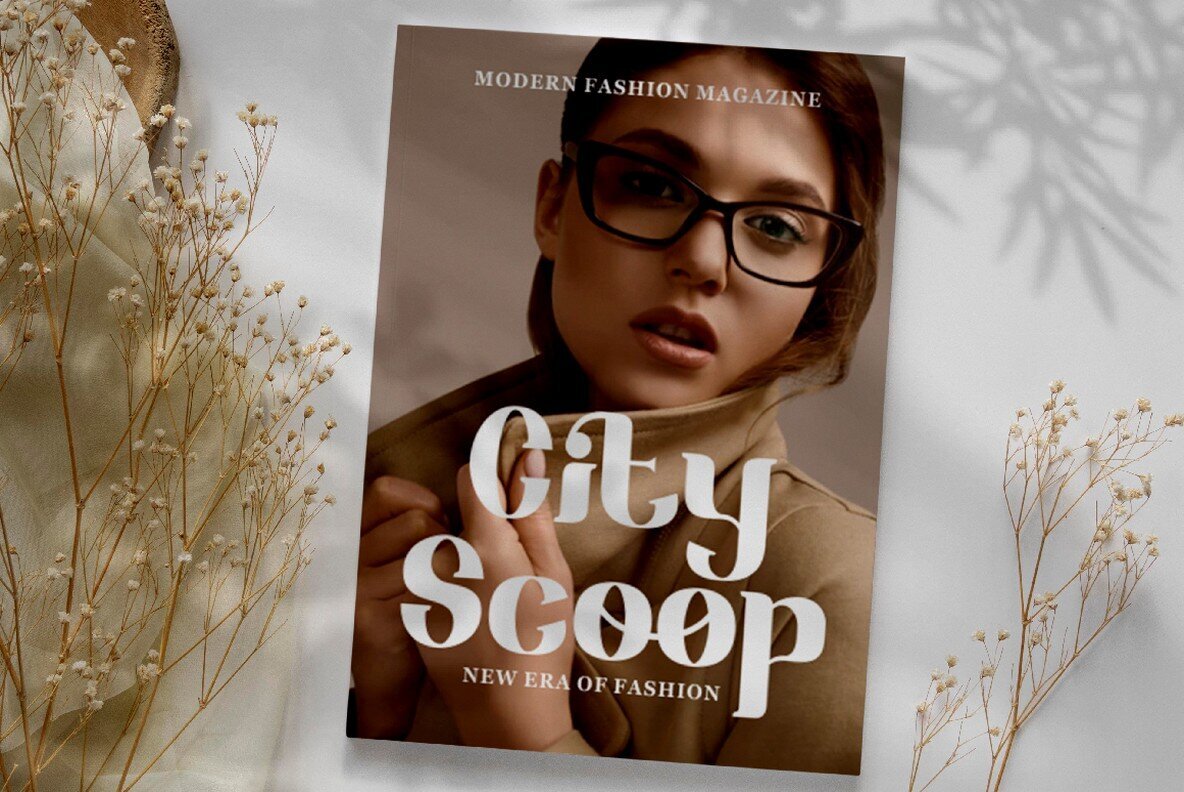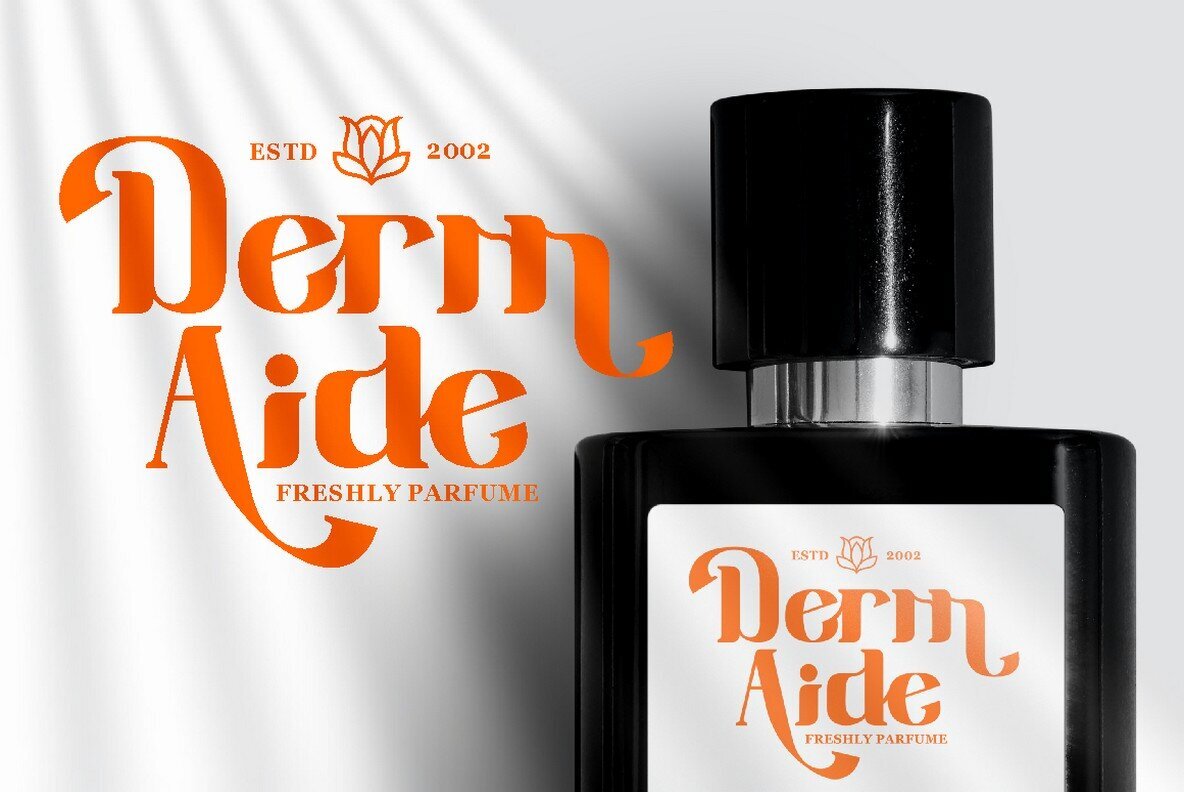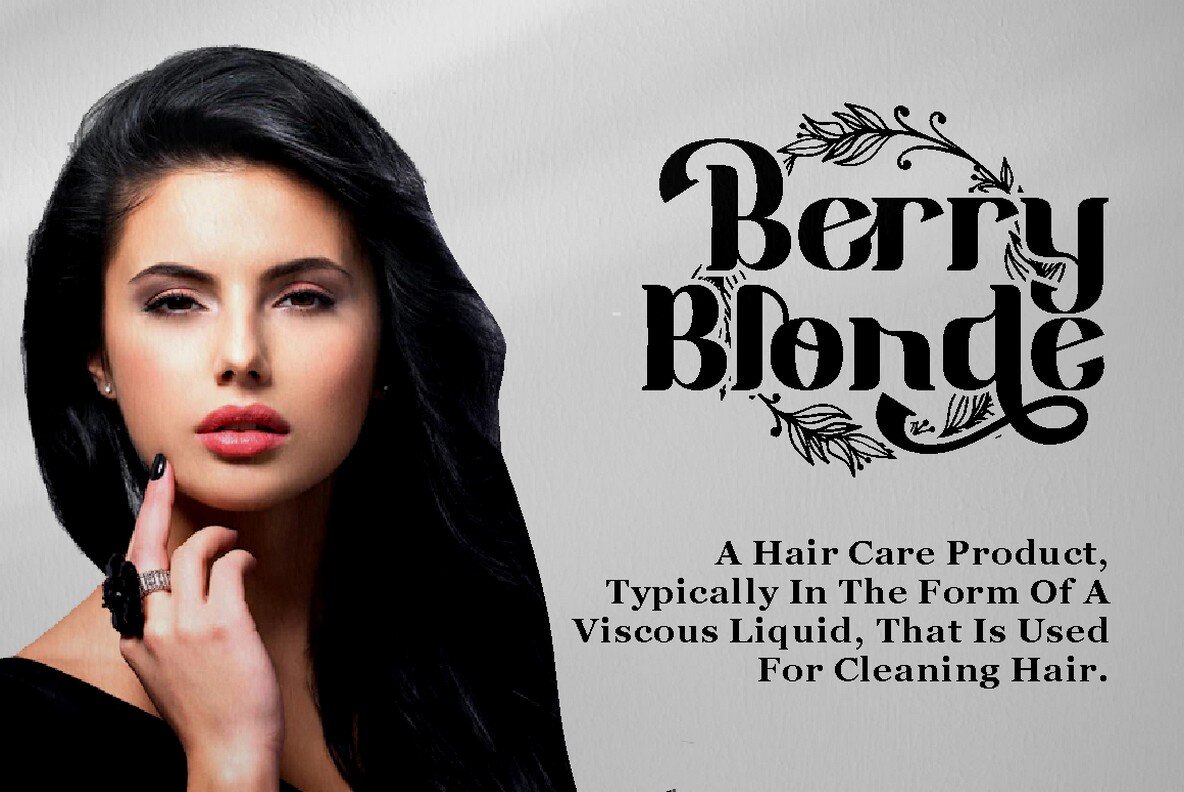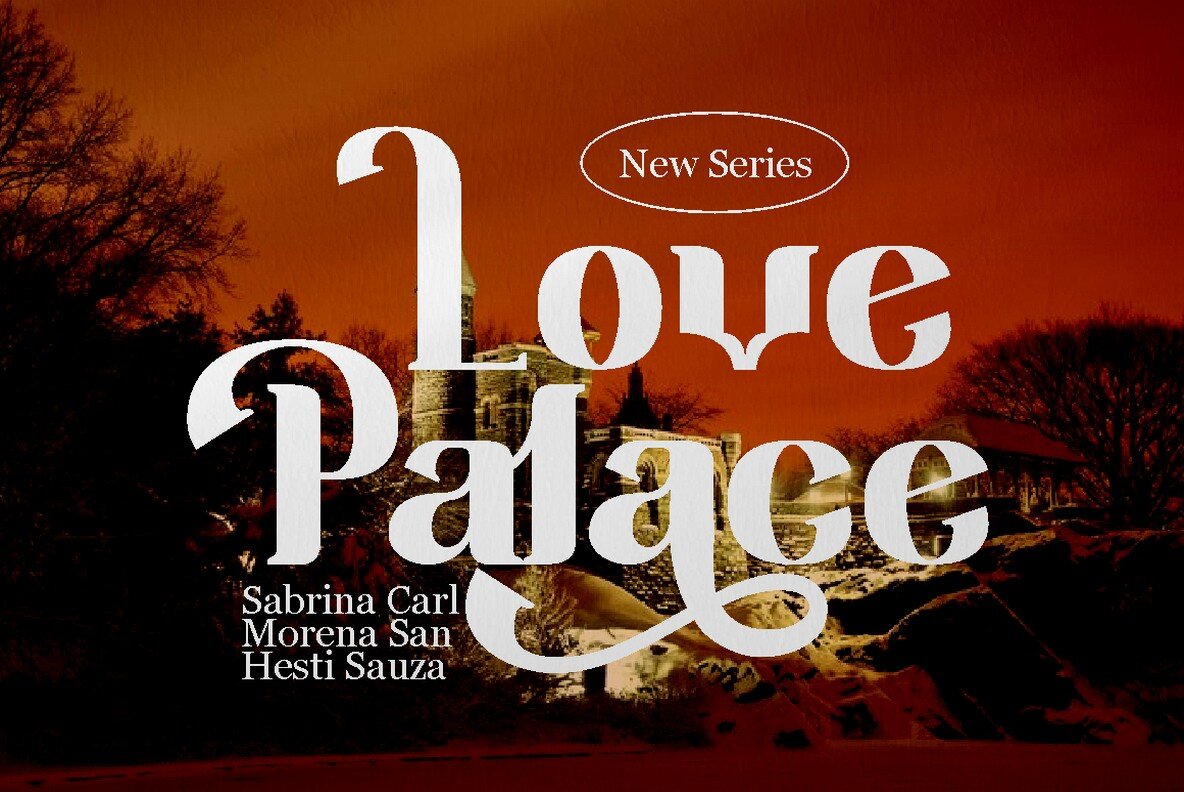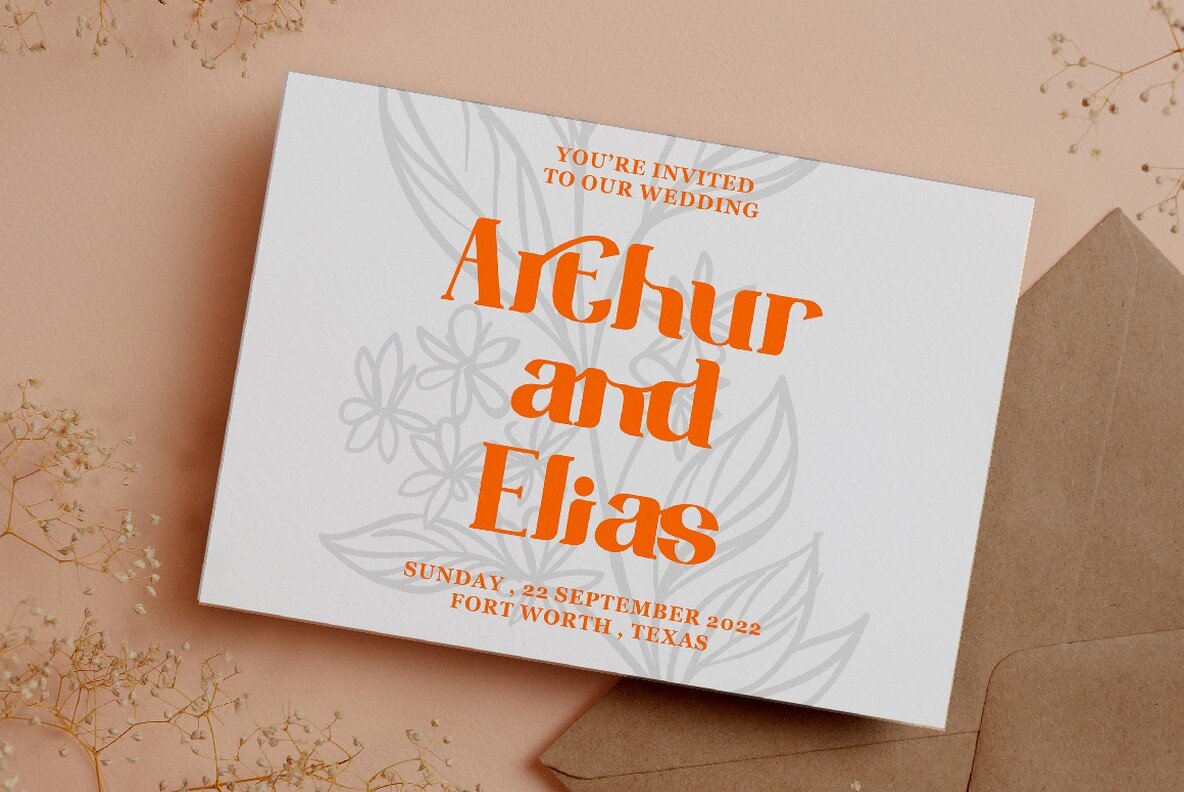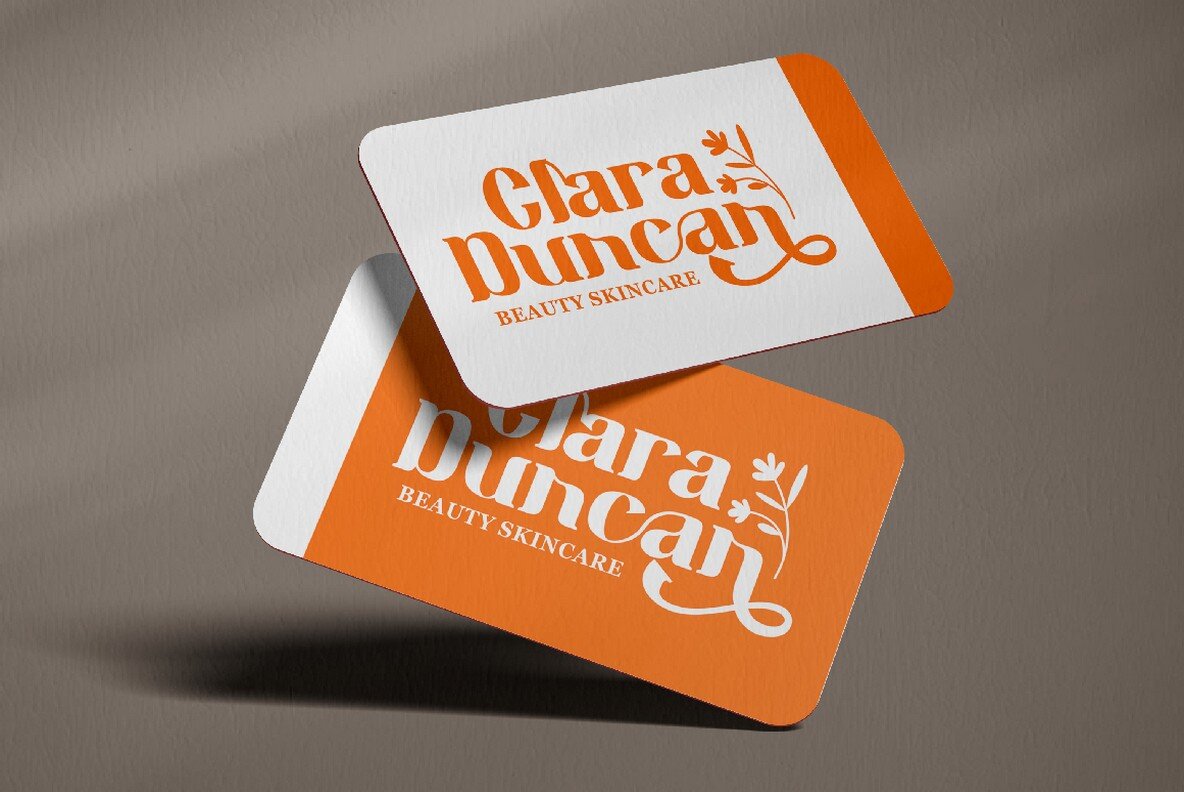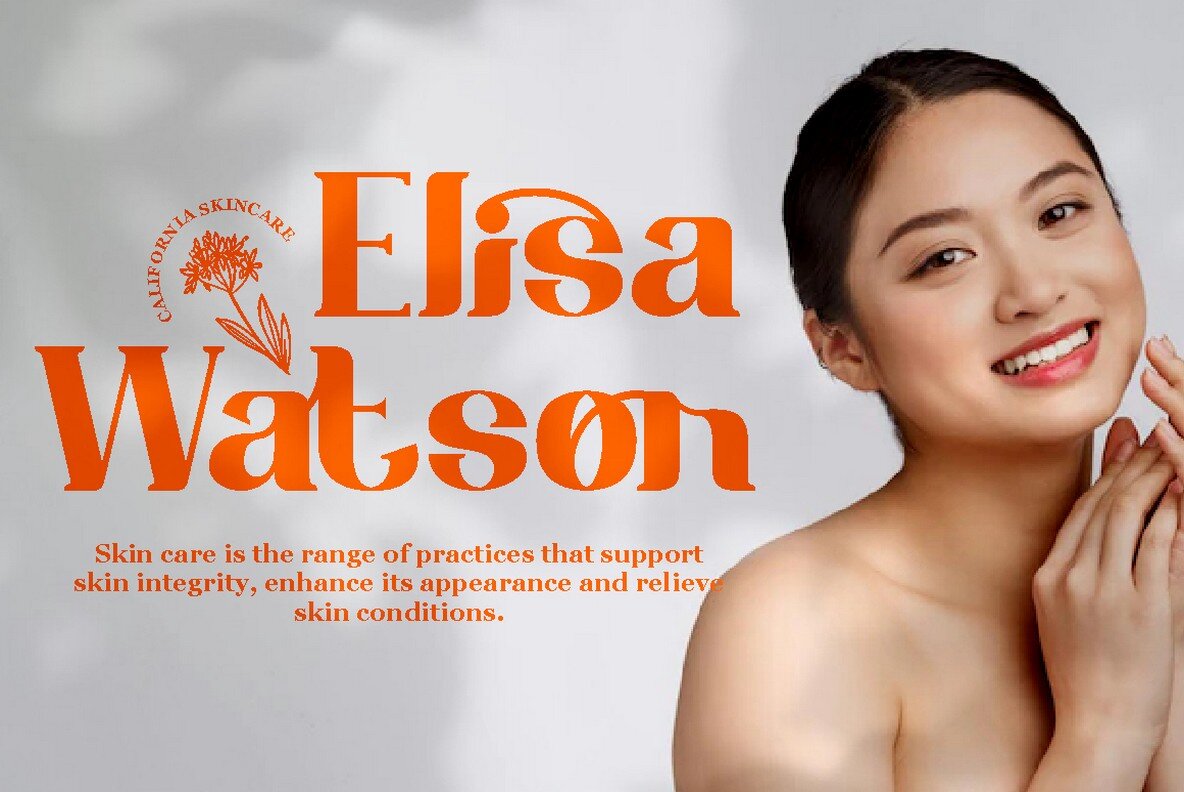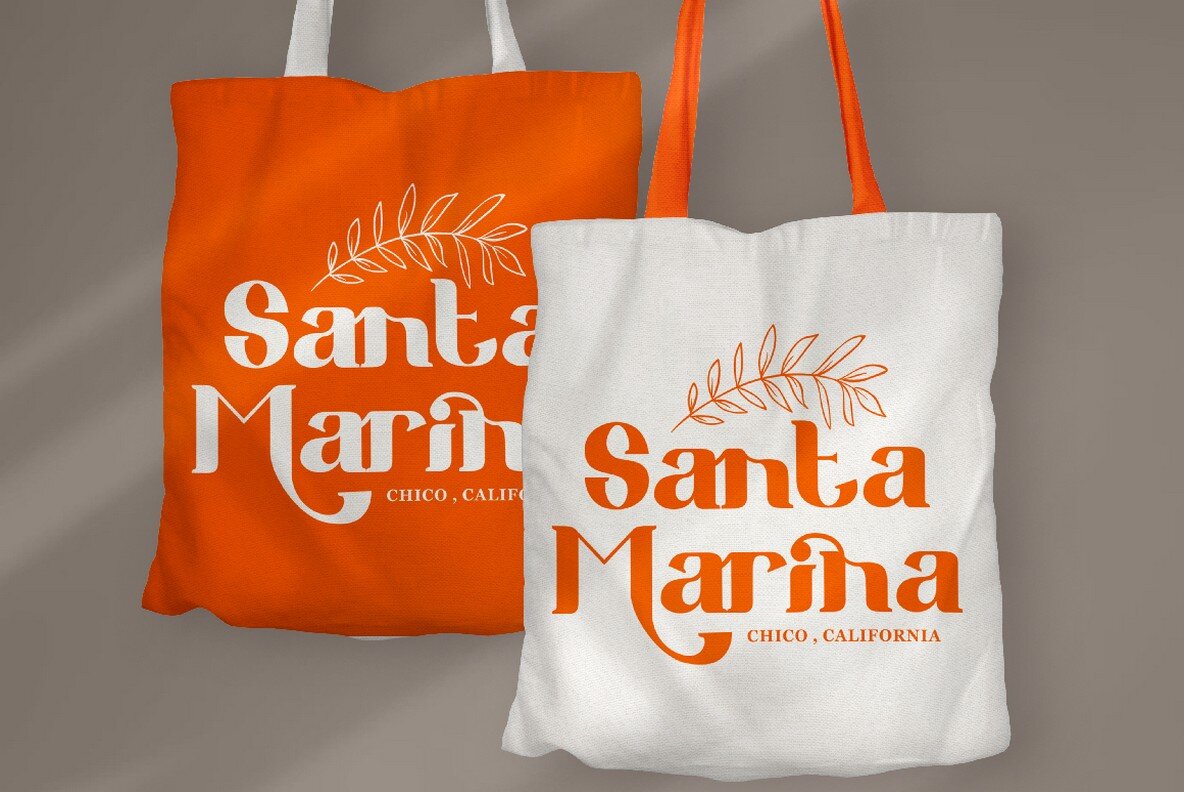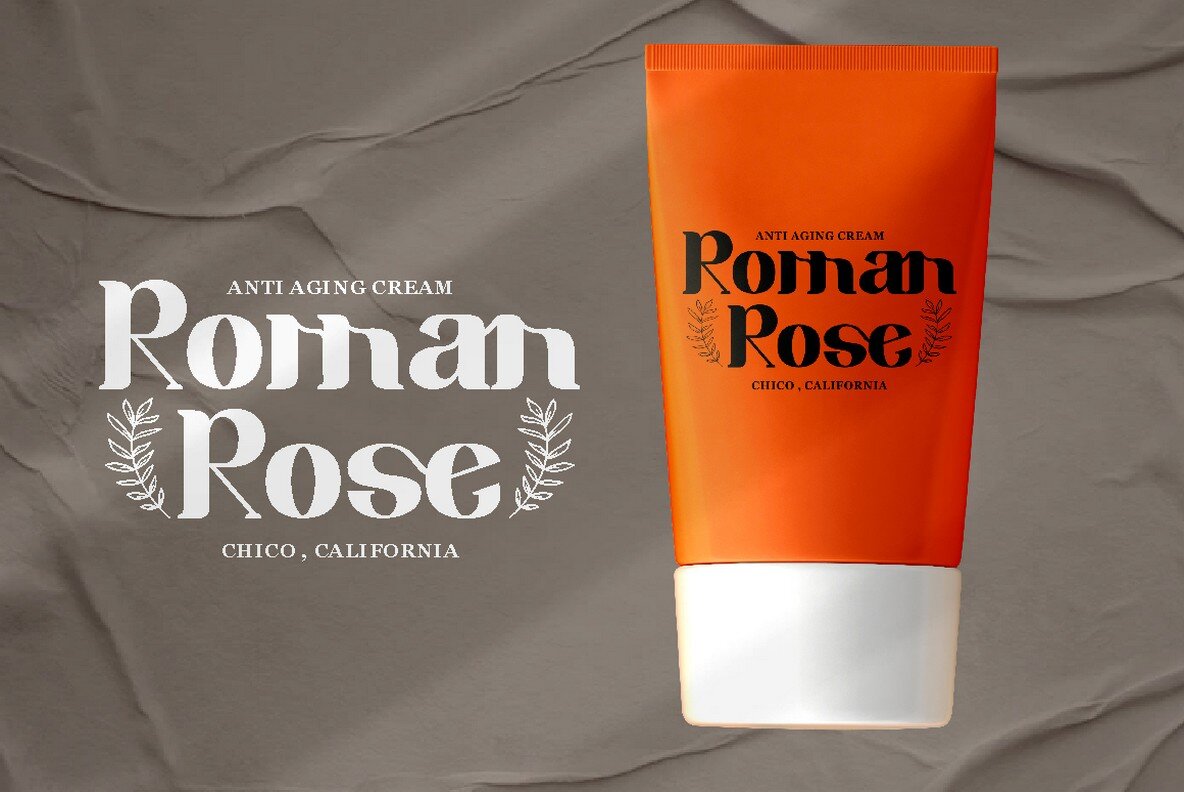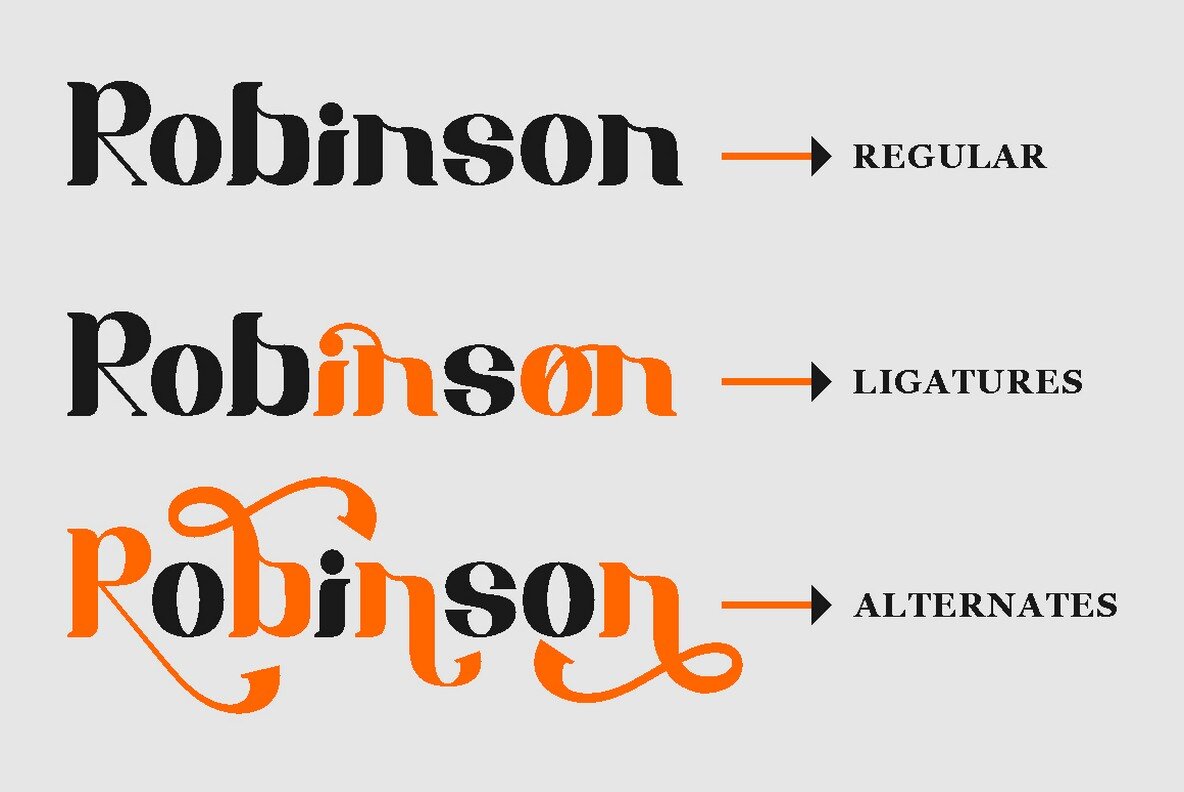
Sixty Niners Font
Sixty Niners Regular
Sixty Niners Texture
Sixty Niners by Putra Novembria Candra Kusuma brings together the charm of vintage magazine typography and the sleekness of modern design. This retro display font features unique ligatures that lend themselves to stunning lettering and artistic expressions. Sixty Niners is perfect for logotypes, headings, posters, and social media graphics, among other applications. Its versatility extends to quotes, product packaging, greeting cards, and more, making it an invaluable tool in any designer's toolkit.Sixty Niners: A Retro Display Font for Modern Aesthetics
A defining aspect of the Sixty Niners is its open type features, providing a multitude of alternates and swash endings that enhance your creative projects effortlessly.Remarkable Features